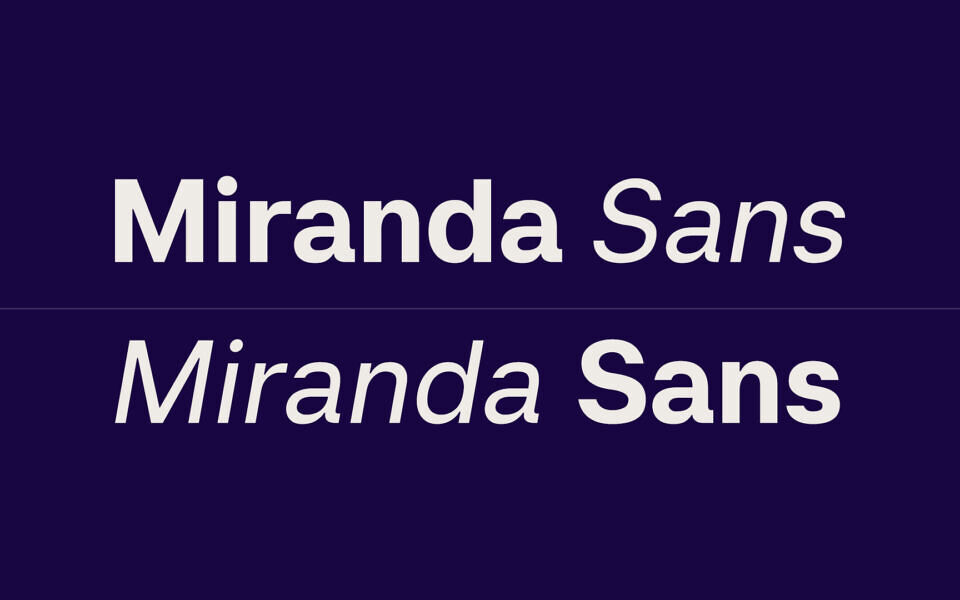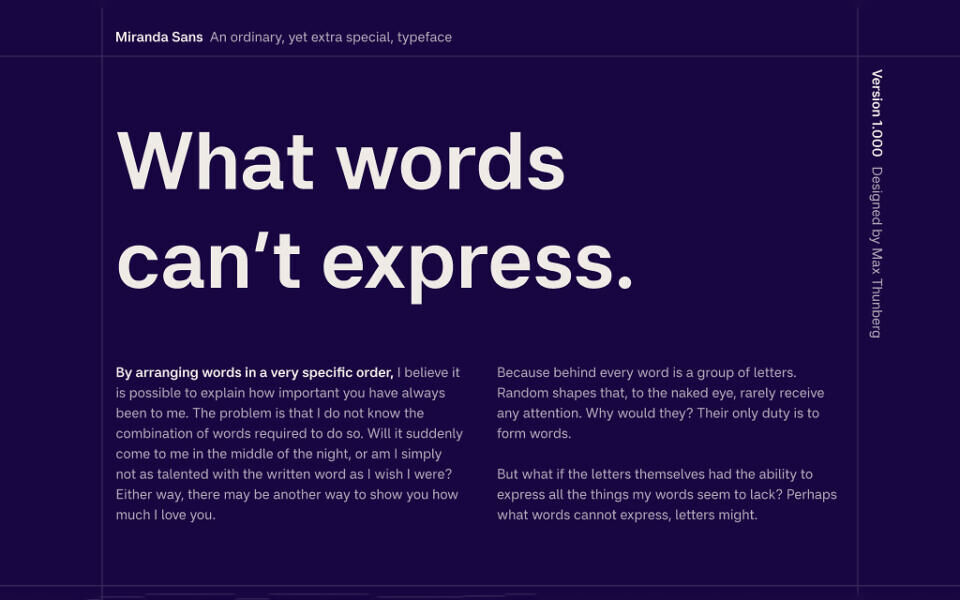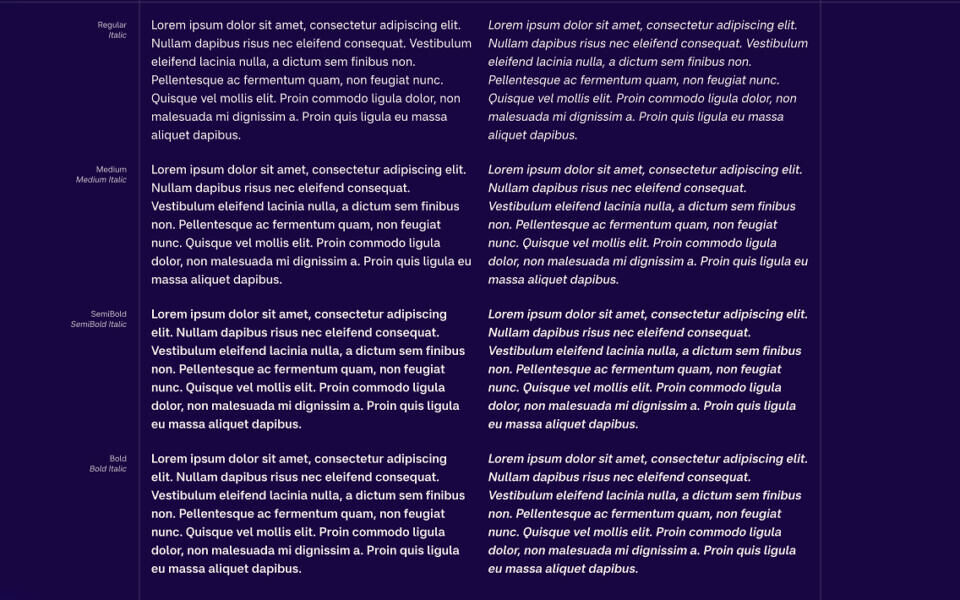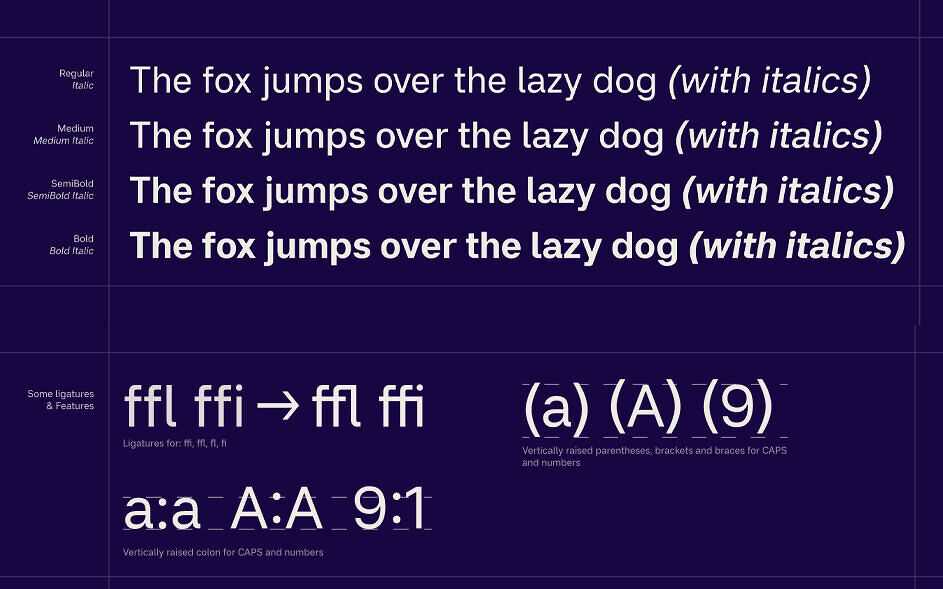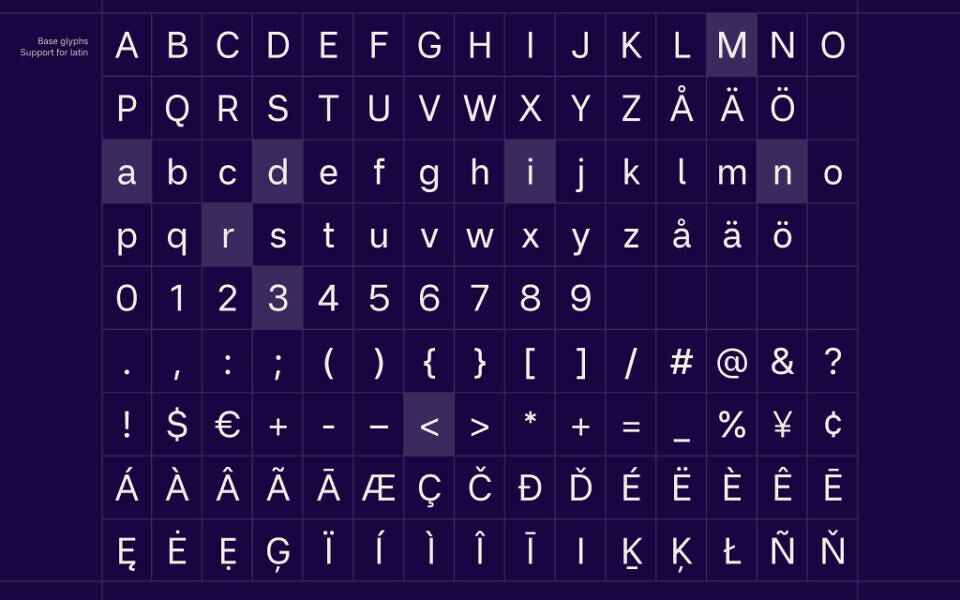
Miranda Sans is a contemporary sans serif typeface designed with a clear focus on readability on screens. It is built for text that needs to be read, not noticed, with calm proportions, open shapes, and carefully balanced spacing that holds up across sizes, weights, and long passages of content.
The design avoids unnecessary stylistic gestures and instead concentrates on clarity, rhythm, and consistency. Each letter is shaped to work as part of a system, supporting words and sentences rather than drawing attention to itself. The result is a typeface that feels stable, neutral, and dependable, particularly in digital environments where legibility matters most.
Miranda Sans was developed with variable font technology in mind, allowing it to adapt smoothly across weights while maintaining a consistent visual voice. The family currently includes multiple weights from Regular to Bold, with matching italics, and is designed to perform consistently across both screen and print environments.